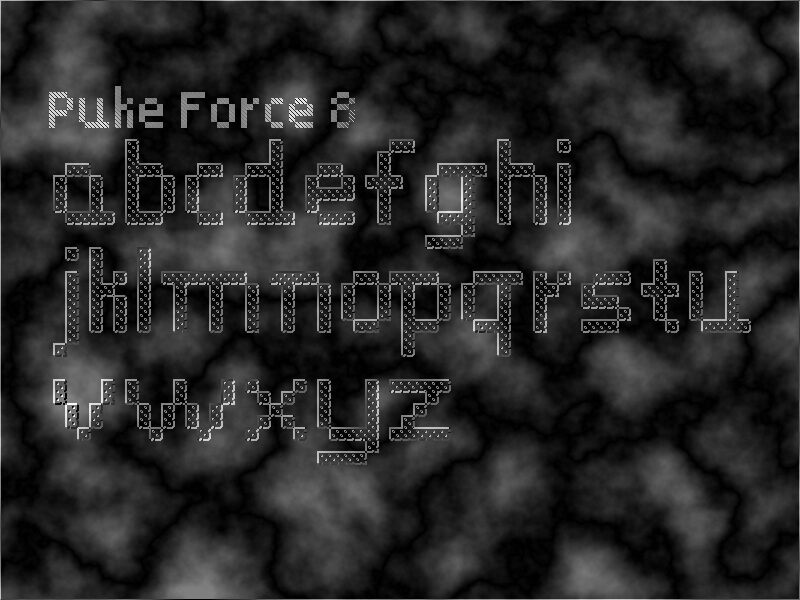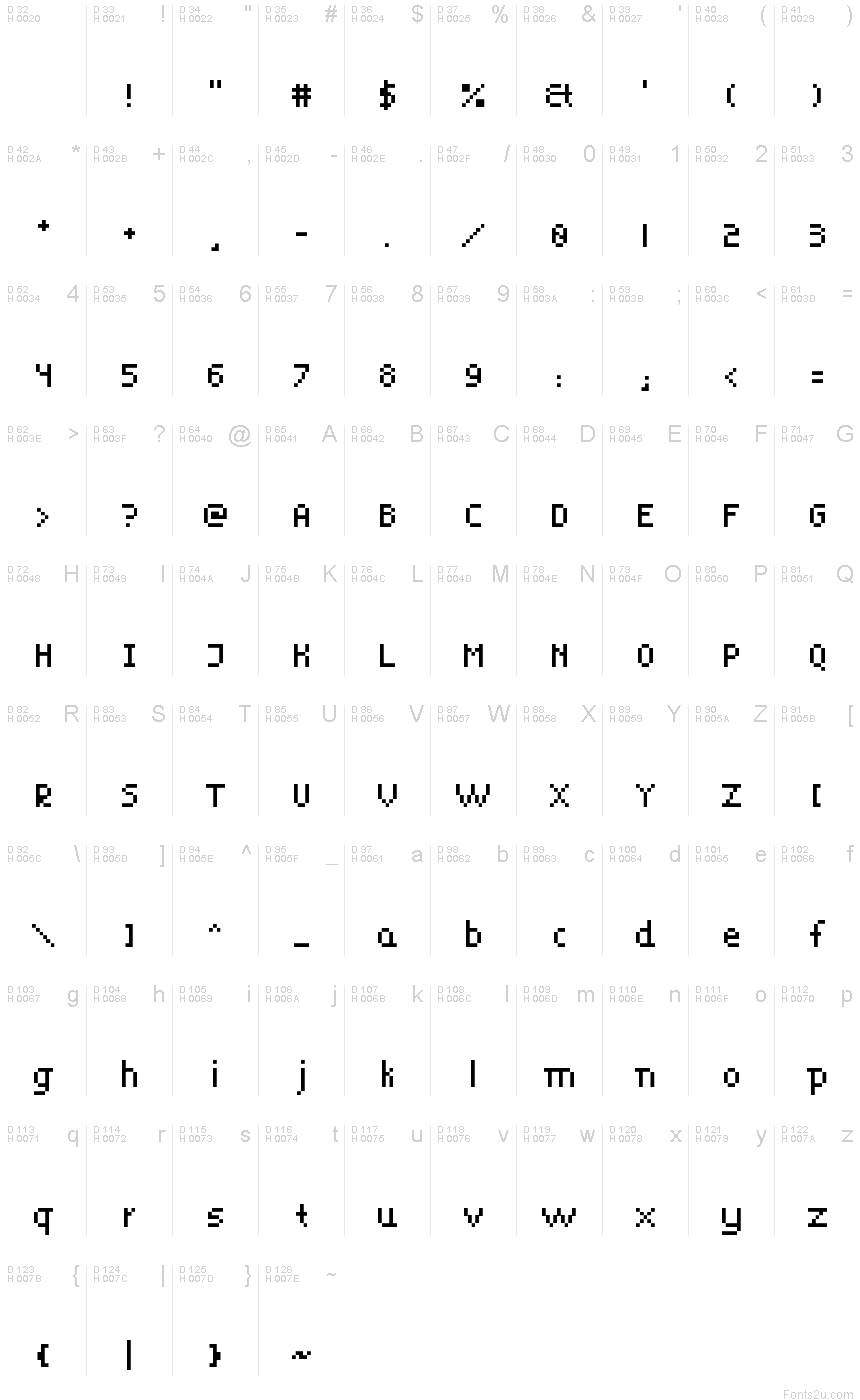
This is a FontStruction made by me - Puke Force 8. As you can see, it's a pixelated font.
Puke Force 8
Svetoslav Atanasov
ÄúPuke Force 8Äù was built with FontStruct